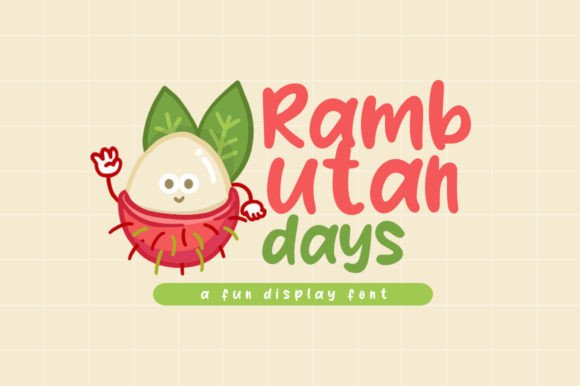
**Take Your Designs to the Next Level with Rambutan Days: The Perfect Font for Bringing Fun and Playfulness to Your Creations**
Introducing Rambutan Days, the display font that will add a touch of whimsy and joy to all your design projects. Created by the talented si.jalembe, this playful font is perfect for adding a playful touch to children's games, cartoon-related designs, and anything else that calls for a dash of fun.
With its unique and eye-catching style, Rambutan Days is sure to make your designs stand out from the crowd. Its playful and friendly nature makes it perfect for creating designs that are both engaging and memorable.
But don't just take our word for it! Here are a few reasons why Rambutan Days should be your go-to font for all your playful design needs:
* **Add a touch of fun to your designs:** Rambutan Days is perfect for adding a touch of whimsy and joy to any design. Its playful and friendly nature makes it perfect for creating designs that are both engaging and memorable.
* **Perfect for children's designs:** Rambutan Days is the perfect font for creating designs that are sure to appeal to children. Its playful and friendly nature makes it perfect for creating designs for children's games, toys, and other products.
* **Great for cartoon-related designs:** Rambutan Days is also a great choice for creating cartoon-related designs. Its playful and whimsical style makes it perfect for creating designs that are both fun and engaging.